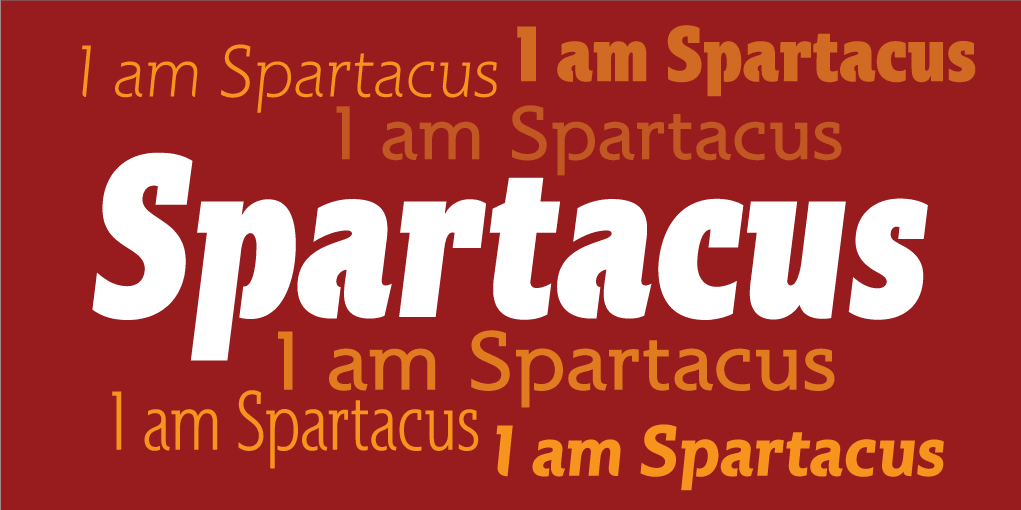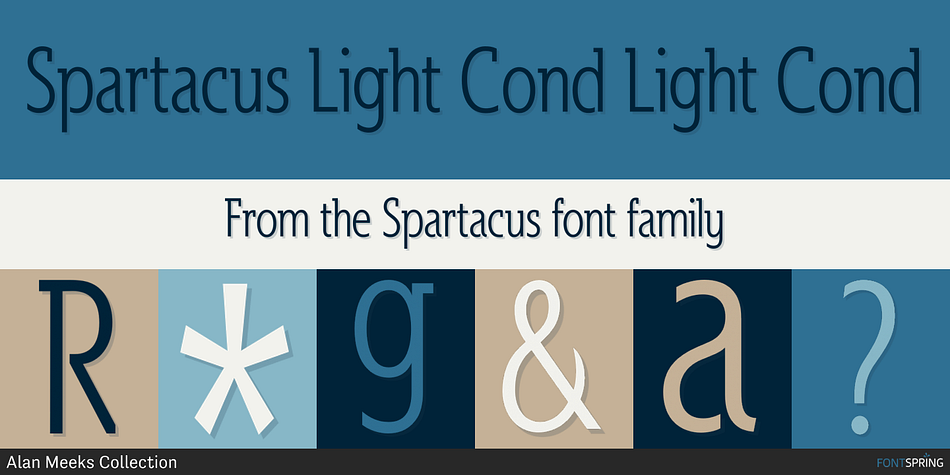
Spartacus Light Cond Light Cond
Spartacus is a serif and slab serif font family. This typeface has eleven styles and was published by Alan Meeks Collection.
A further development of the Colosseum range but this with a slabserif.
A further development of the Colosseum range but this with a slabserif. Visually monoline and modern in apppearence it still retains its Trajan characteristics. The addition of Spartacus black with its unusual Italic gives a the face a strong original headline font.